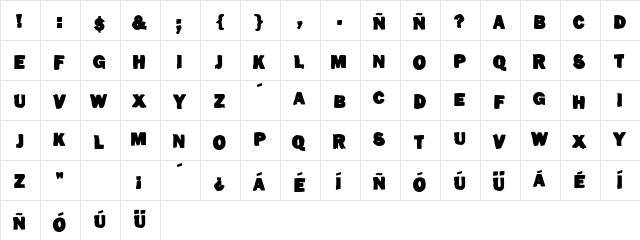
SantoDomingo DeManteca Regular
Design Context for SantoDomingo DeManteca Typeface
SantoDomingo DeManteca is a composed and adaptable typeface that performs quietly and consistently across a wide range of design contexts.